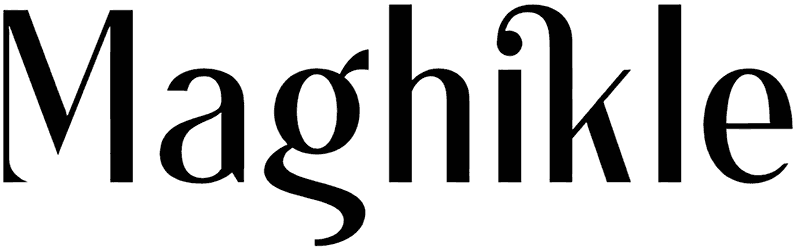
Maghikle Font
You can always earn the trust of your audience with a stylish presentation of your brand, and that can be easily arranged any time you set your mind to it with Maghikle and its formal approach. Fancy and respectful, this ligature font can be the face of your business in different scenarios.
Let it be a jewelry design online shop, a fashion brand, a bookstore, or something else entirely, Maghikle can always handle it flawlessly as an artistic fancy font.